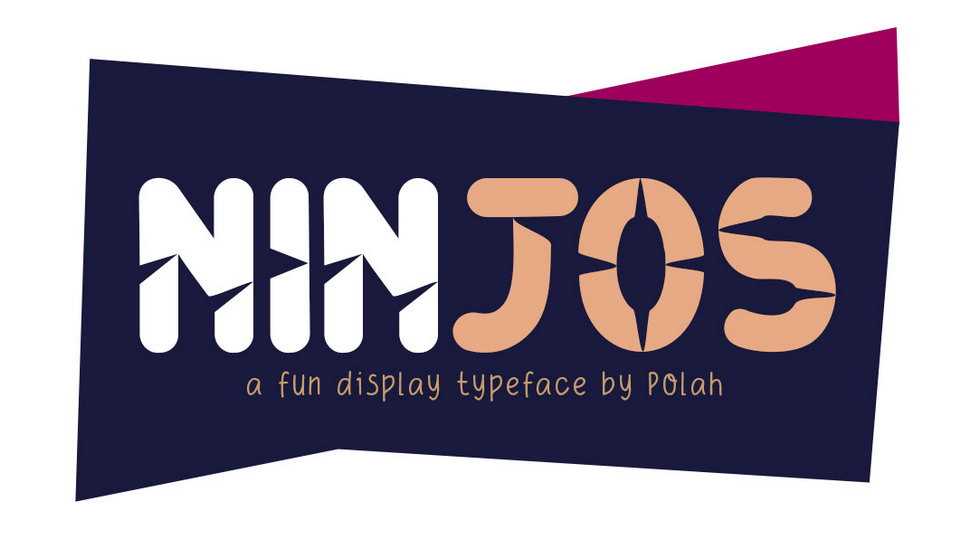
Download Ninjos font, a creative fun display font with soft forms and some cuts. Great for posters, banners, headlines, t-shirt prints and other display purposes
Designer: Polah Khurasan